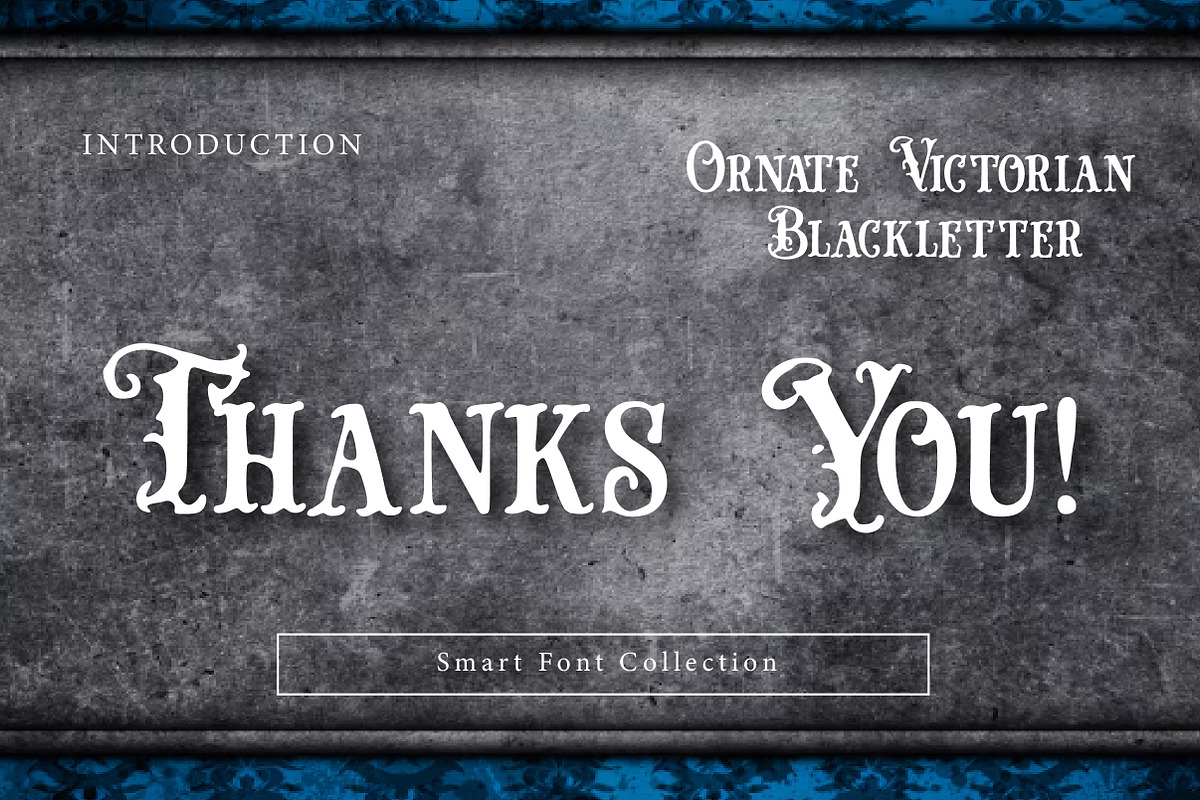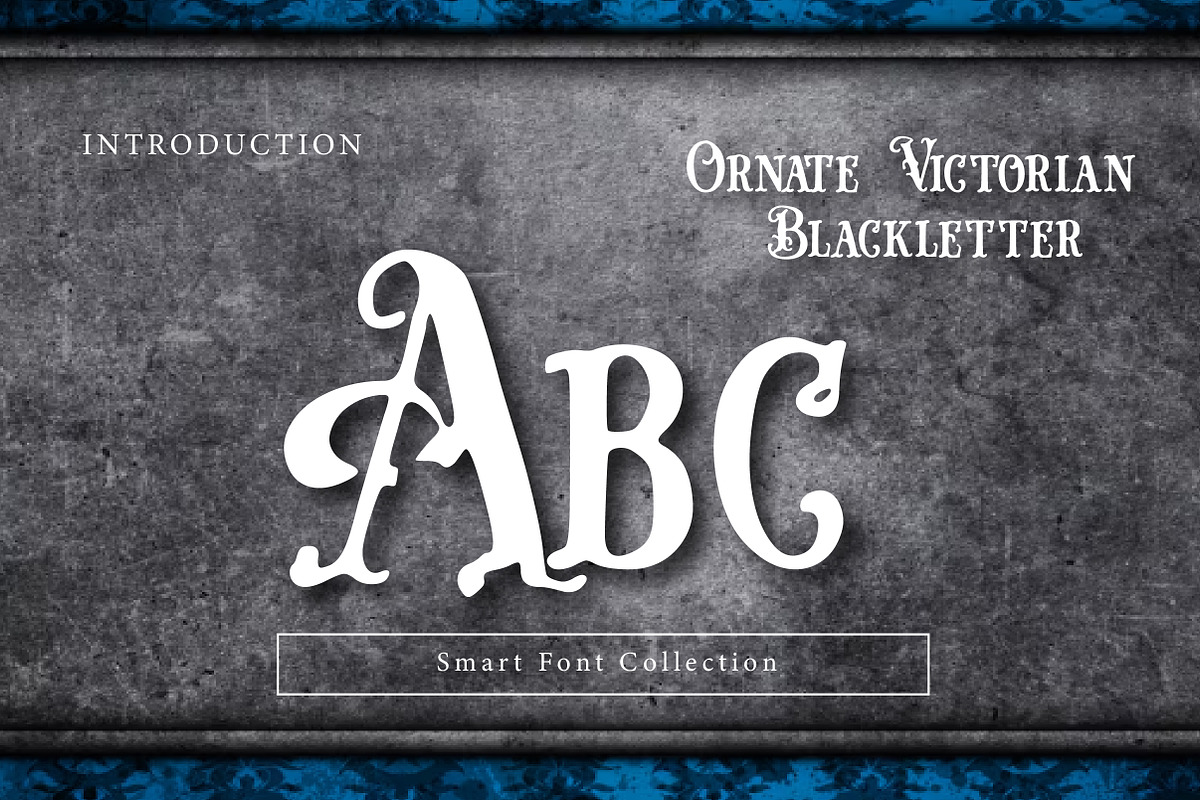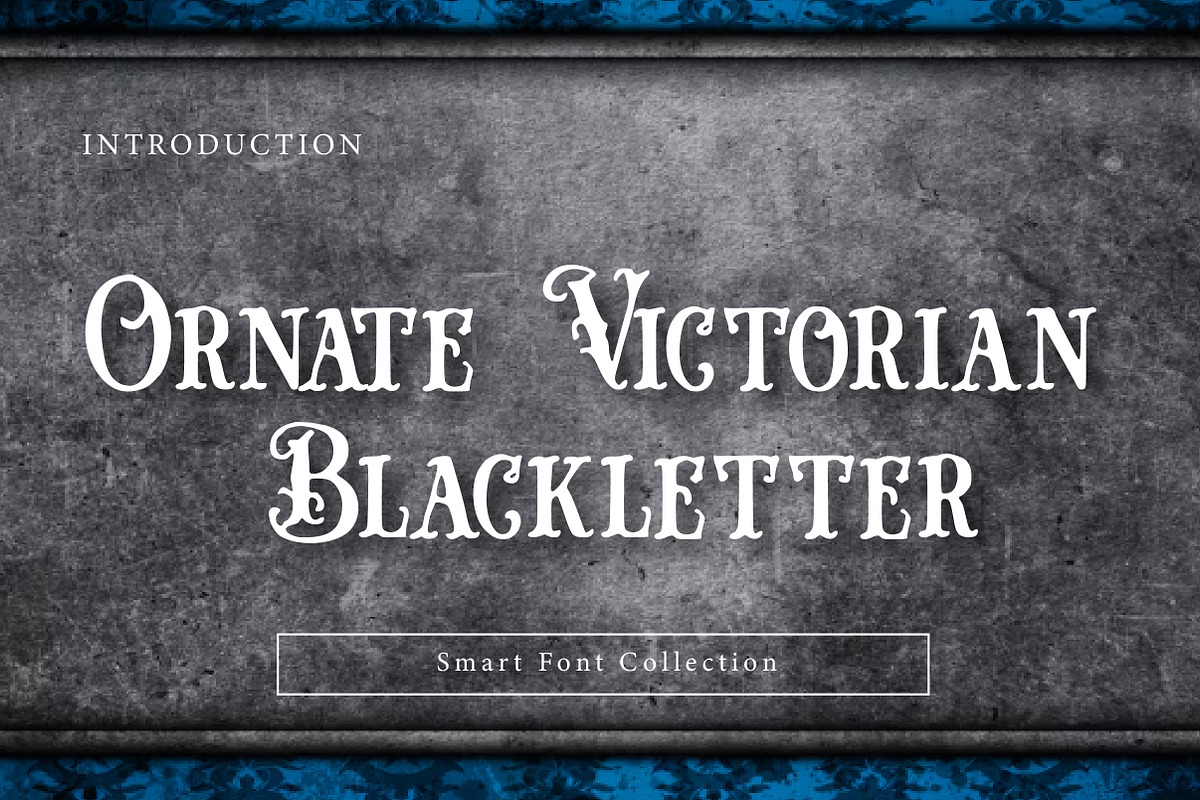
Ornate victorian blackletter
Ornate Victorian Blackletter is a bold, decorative blackletter display font inspired by Victorian-era typography and classic Gothic/Old English lettering. With sharp serifs, dramatic strokes, and an antique engraved feel, it’s perfect for designs that need a royal, medieval, dark, or vintage atmosphere.
Use it for logos, band merch, posters, book covers, tattoo-style lettering, packaging, labels, headlines, invitations, certificates, Halloween designs, gothic wedding themes, and any project where you want a historic, ornamental look.
Ideal for: Branding, signage, apparel, stickers, social media titles, YouTube thumbnails, and dramatic quote designs.